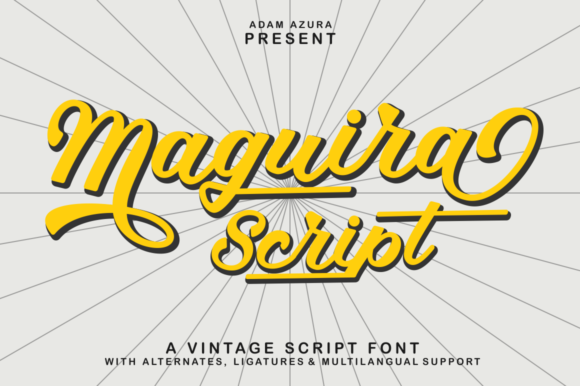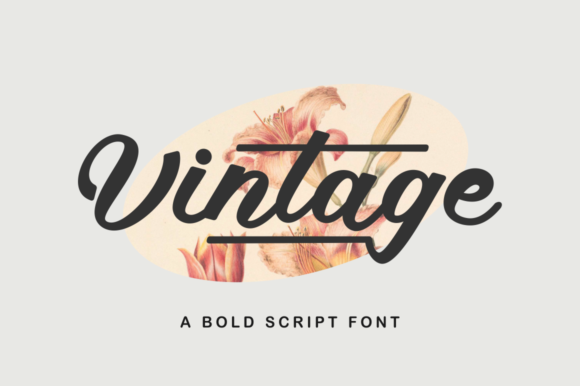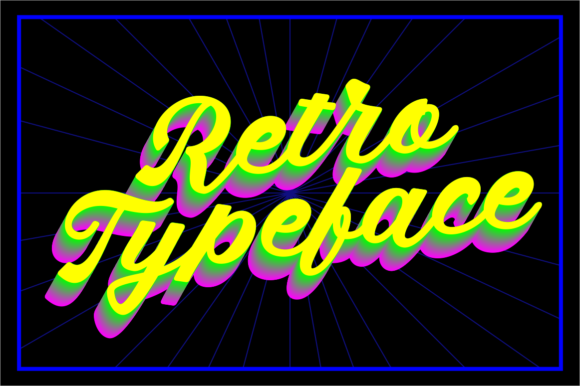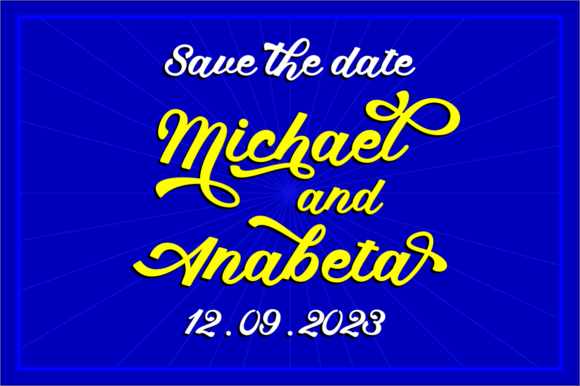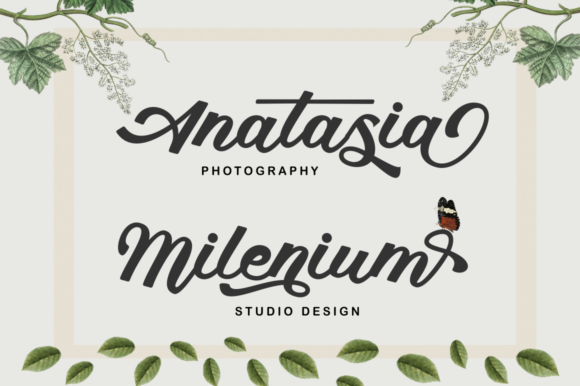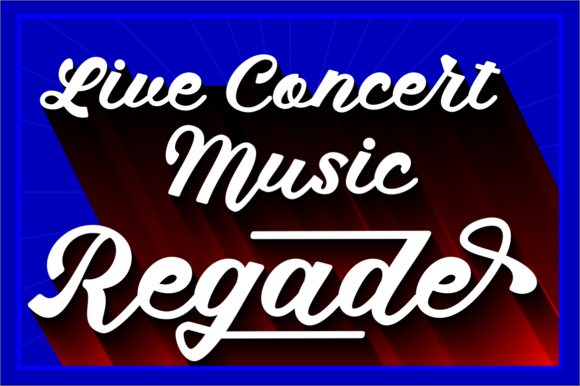
Maguira Script Font
About Maguira Script Font
Maguira Script is a retro and bold script font. It is PUA encoded which means you can access all of the beautiful glyphs and swashes with ease!
This font reads as strong, confident, and dynamic and can add tons of nostalgic character to your designs.